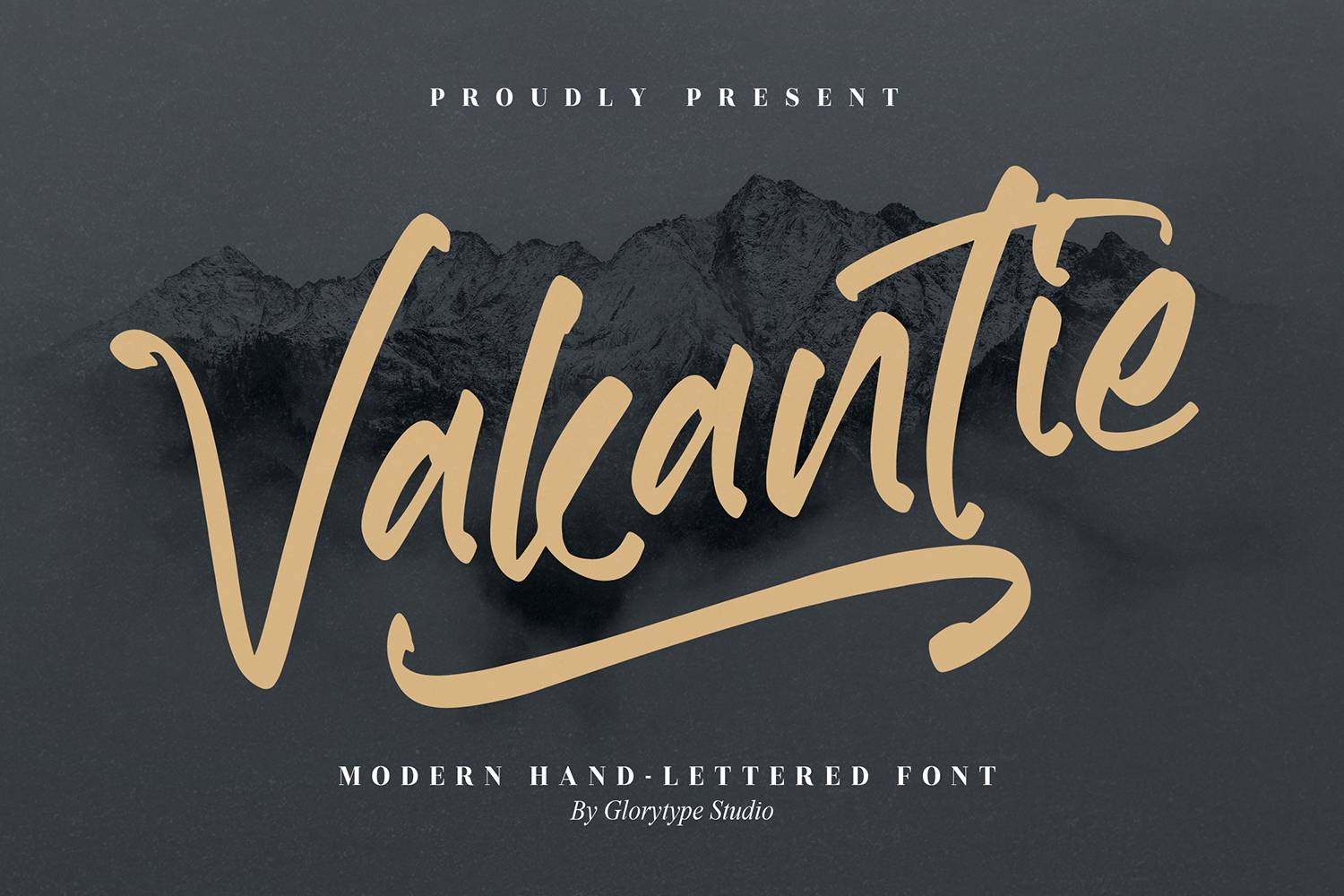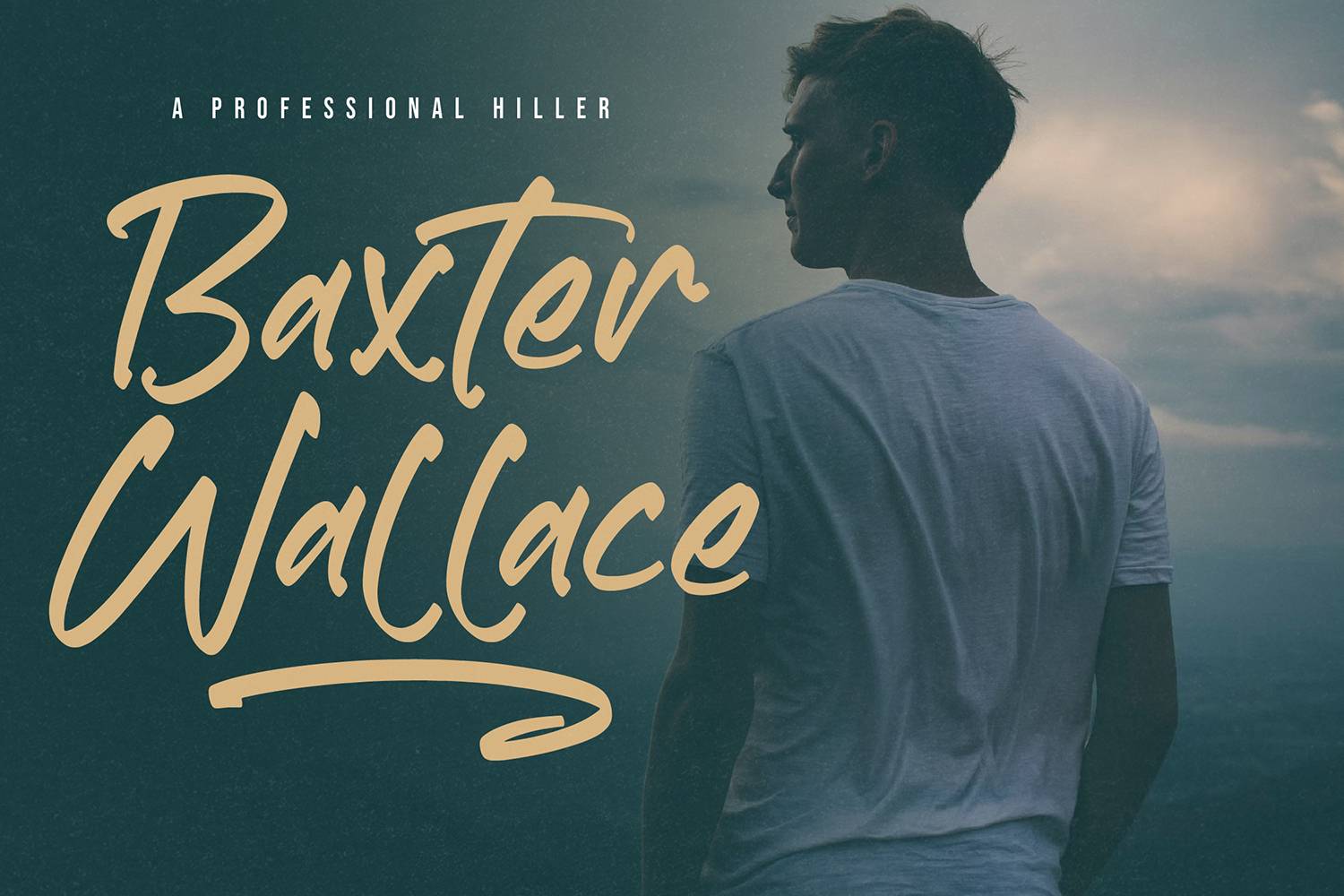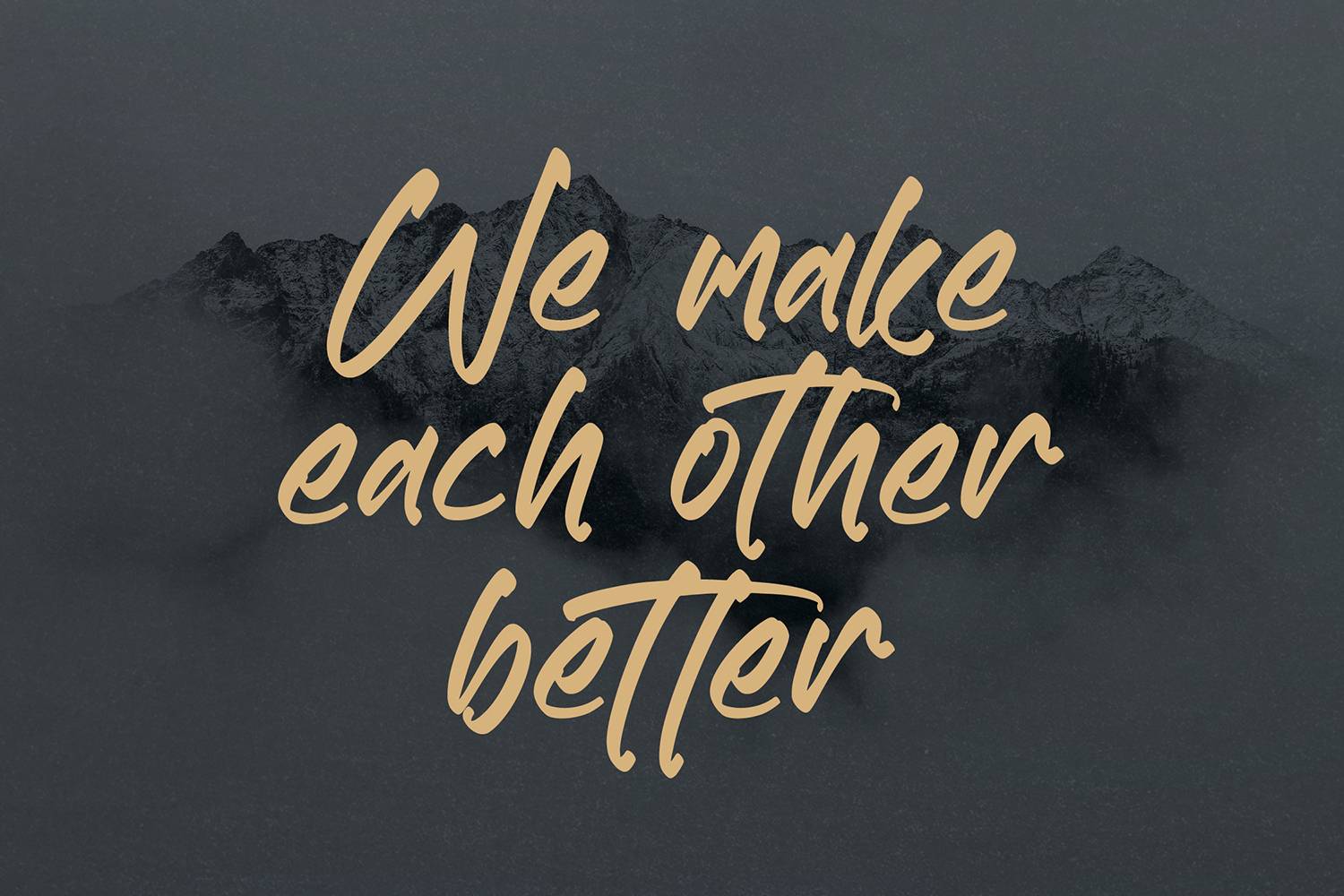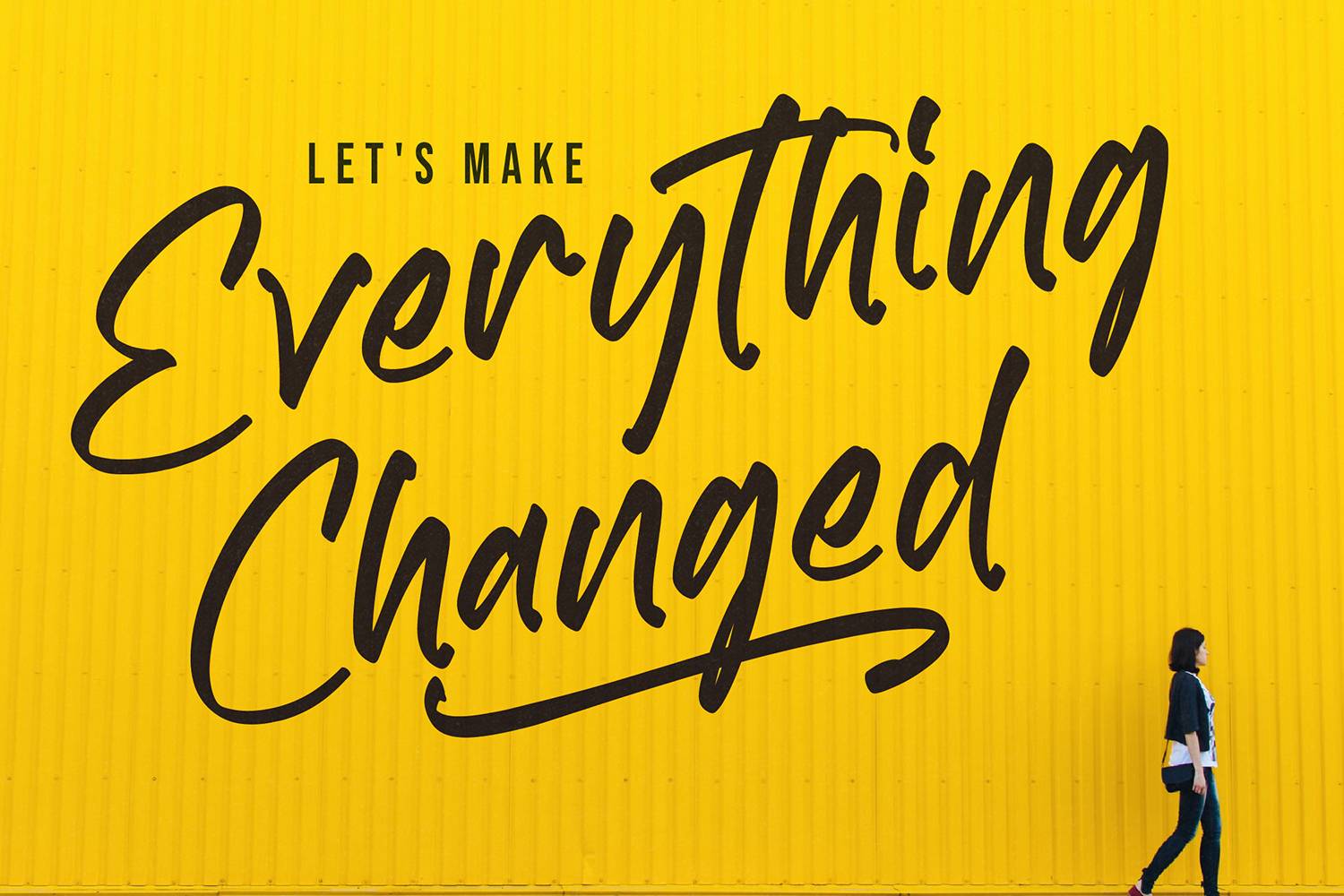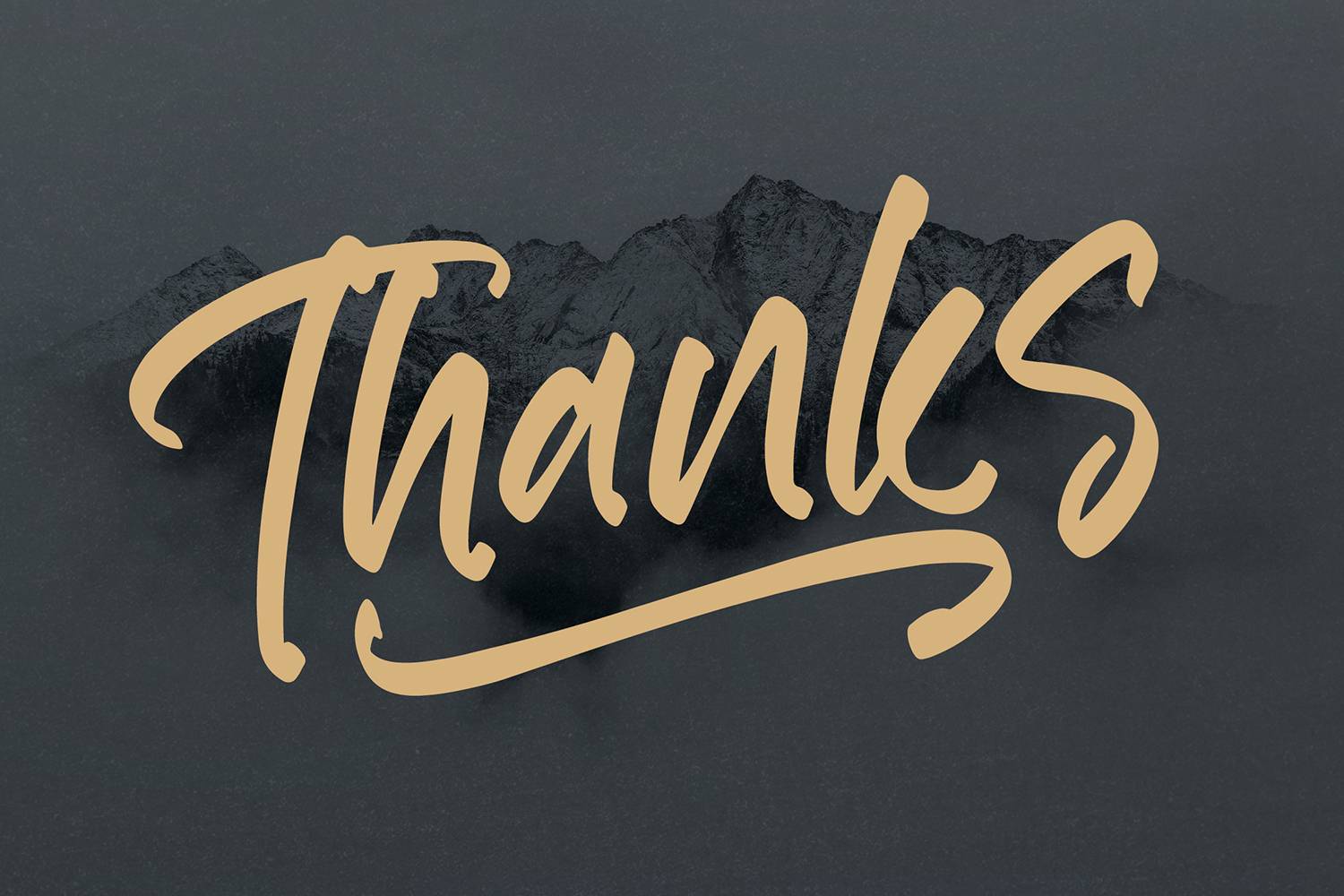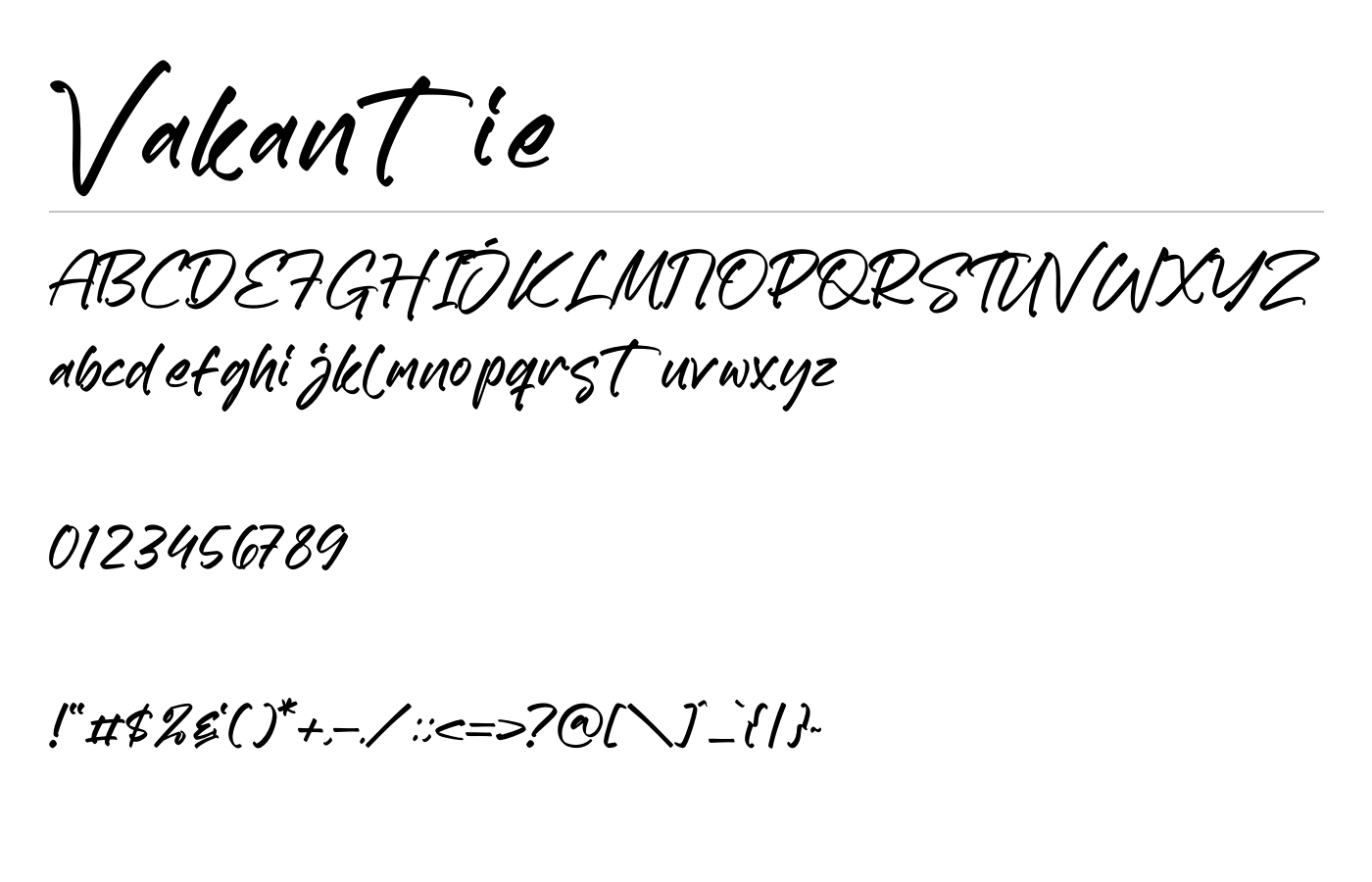
Vakantie is a lively, handwritten script font featuring a casual and fluid style with moderate contrast and natural, slightly uneven strokes that mimic genuine penmanship. Its varied letterforms convey a personal and expressive personality, making it ideal for creative branding, invitations, and playful editorial designs where warmth and authenticity are desired. This font works well in headline and display uses, adding a friendly, approachable touch to any project.
Vakantie Font
About Vakantie Font